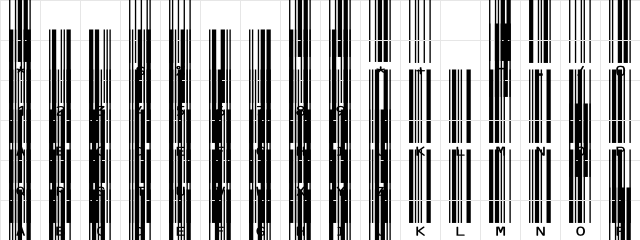
IDAutomationHC39M Regular
| Foundry | IDAutomation |
| Designer | IDAutomation.com, Inc. |
Design Context for IDAutomationHC39M Typeface
IDAutomationHC39M is a composed and adaptable typeface that performs quietly and consistently across a wide range of design contexts.